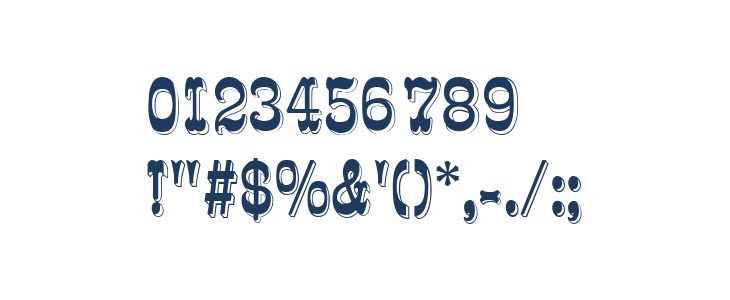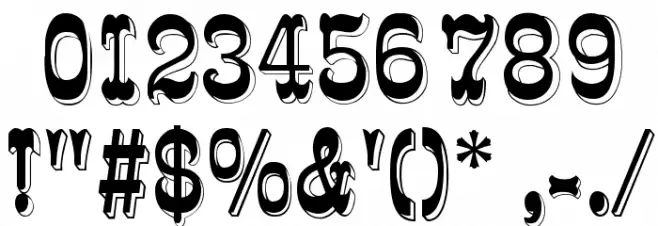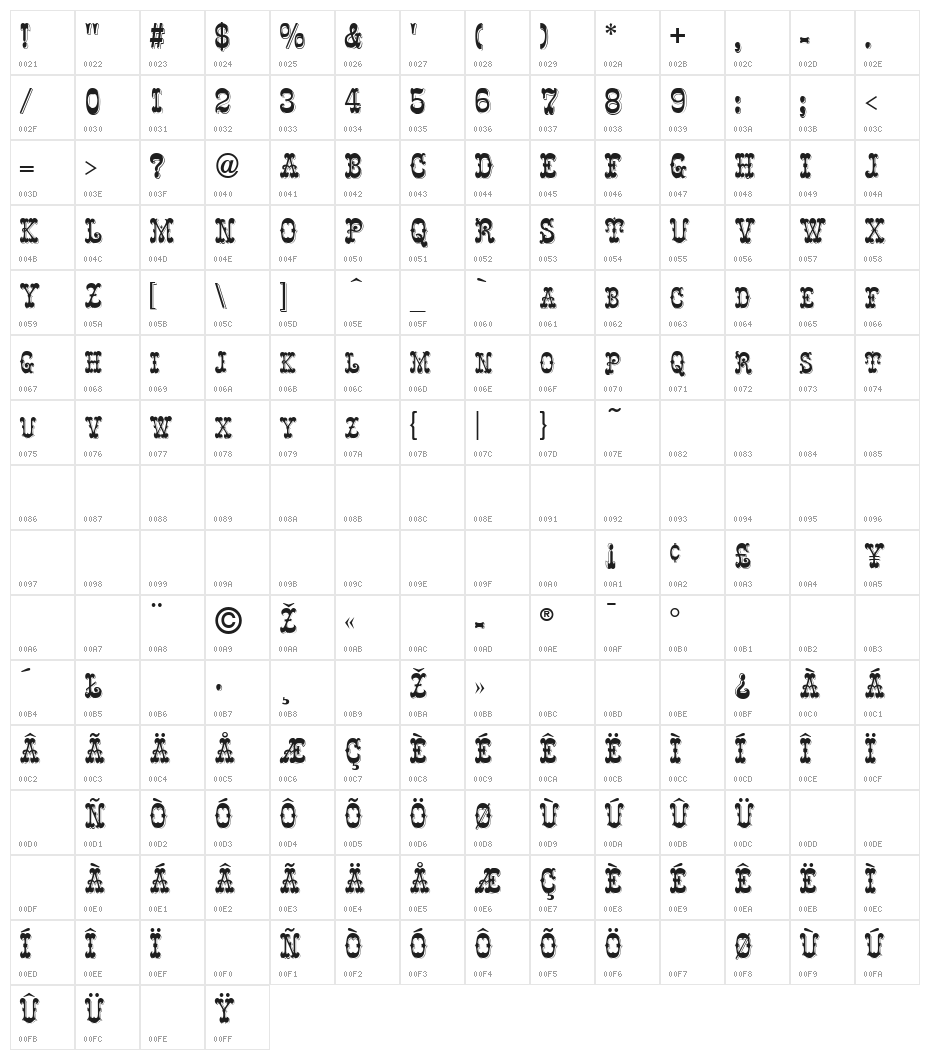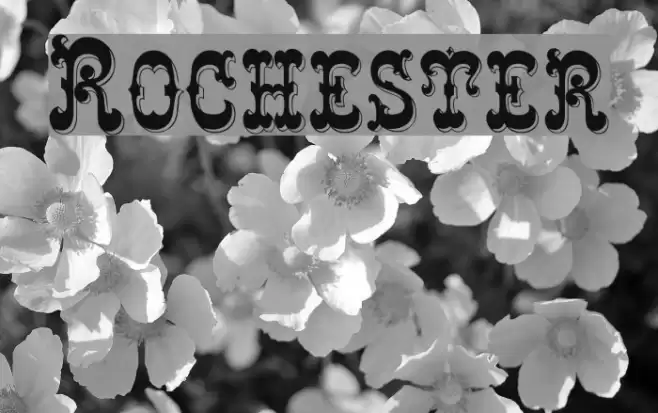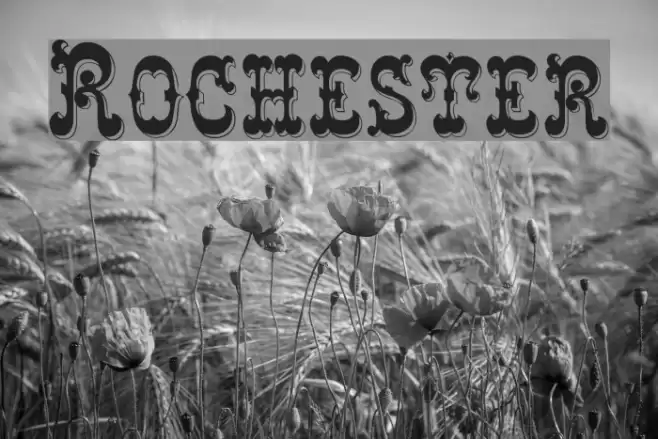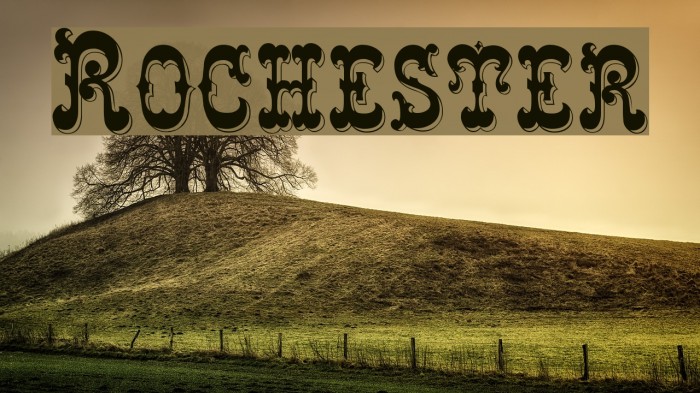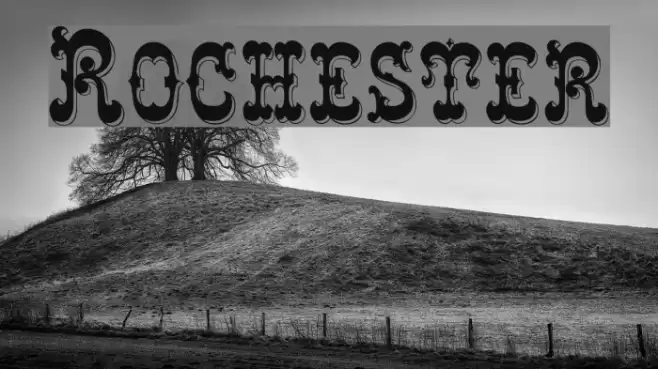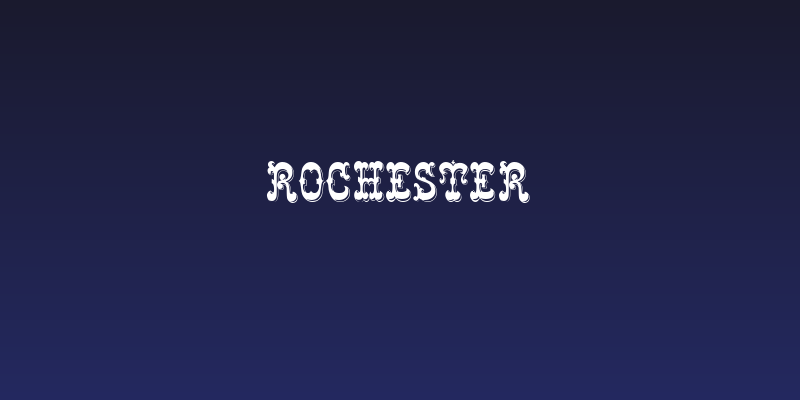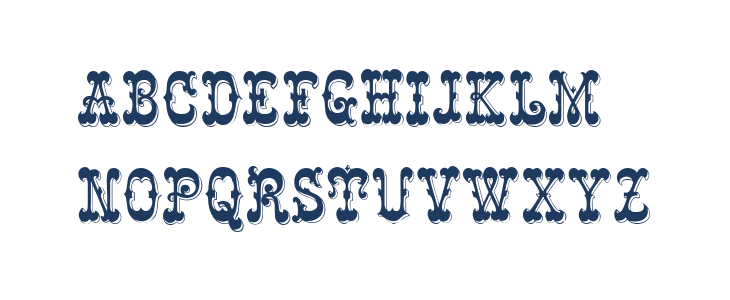
Rochester Font
Rochester Description
This font features a bold and decorative style with intricate detailing and flourishes that give it a vintage and ornate appearance. The characters are heavily stylized with thick strokes and elaborate serifs, creating a sense of grandeur and elegance. The uppercase and lowercase letters maintain a consistent design, with the numbers and special characters following the same ornate theme. This font is visually striking and commands attention, making it suitable for projects that require a touch of sophistication and flair.
| Proposed Projects | Ideal for vintage-themed posters, event invitations, branding for luxury products, and decorative signage. |